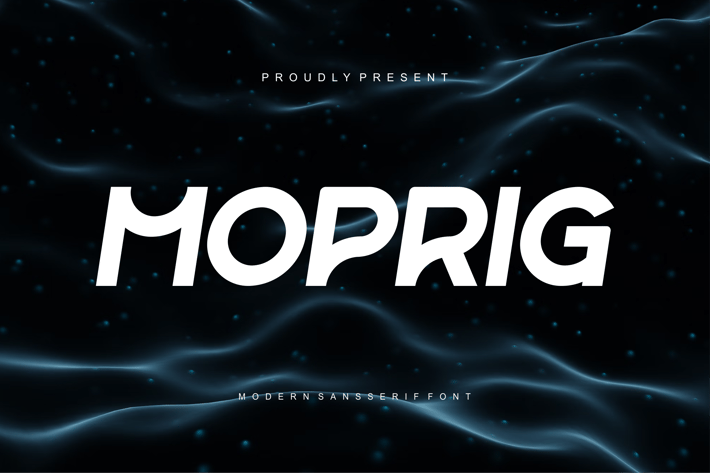
Moprig - Modern Sansserif Font
Introducing our new product Moprig Font - Modern Sansserif Font
Moprig Font- Modern Sansserif Font is a bold and authentic display font. The font is suitable for any branding project like logo,
t-shirt printing, esport, and many more. outstanding in a wide range of contexts.
* Moprig Uppercase